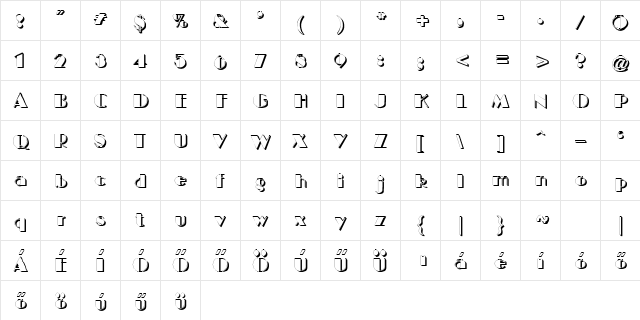
Complete BIGCSHAD-OutlineHU Normal A glyph index. Displaying only characters natively supported by BIGCSHAD-OutlineHU Normal A font.
BIGCSHAD-OutlineHU is built around its visual character rather than neutral utility - its distinctive forms are designed to make an impression at display sizes.
Font Pairing: Pair with a clean neutral sans-serif for body copy to let BIGCSHAD-OutlineHU's character lead without overwhelming the composition.
Pro Tip: Use BIGCSHAD-OutlineHU exclusively at display sizes - it was designed to be seen, not read at length. Let a neutral companion handle body copy.